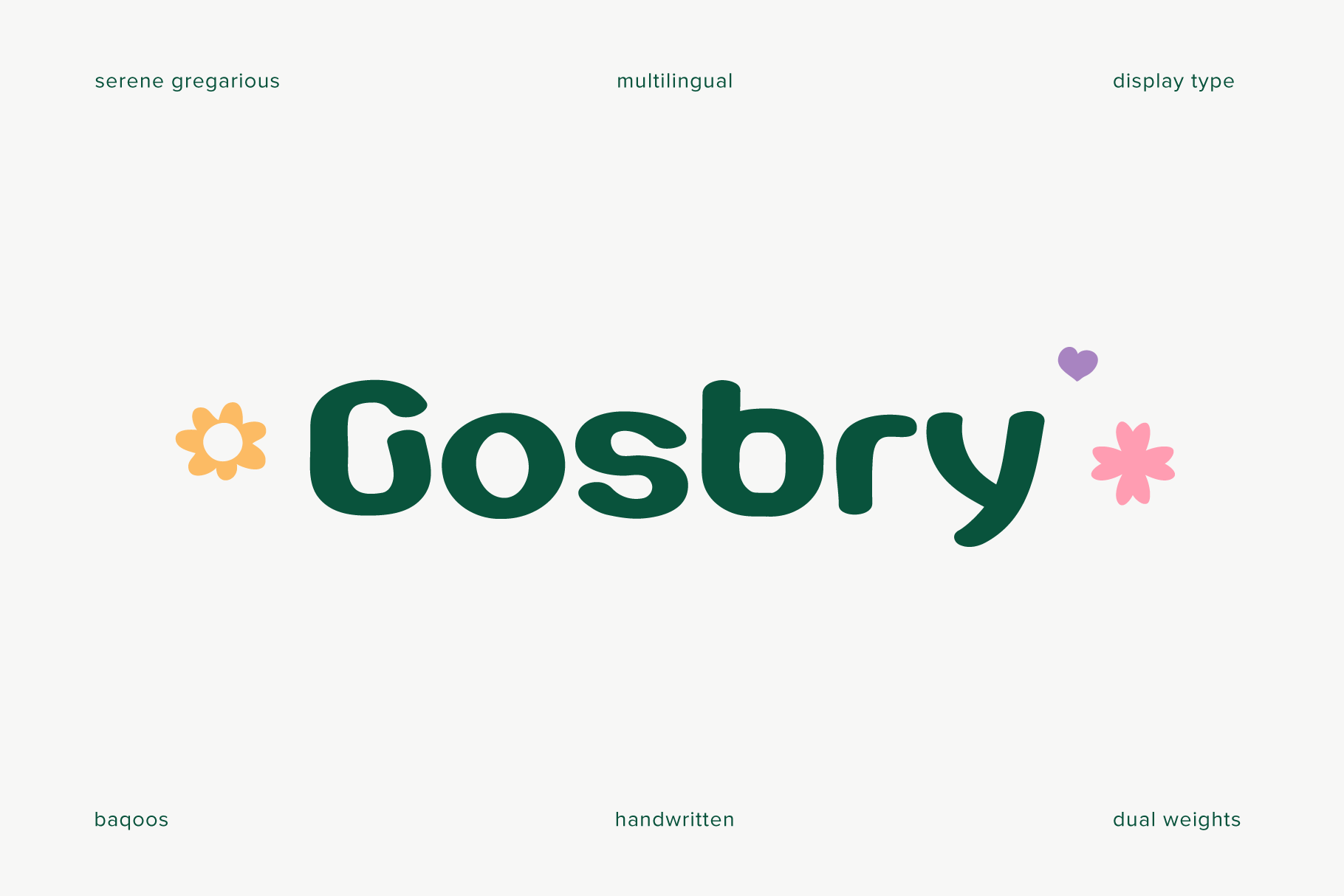
Gosbry Font
Gosbry is a serene gregarious handwritten typeface apt for headline, editorial, branding, packaging, printed materials and typographic applications. 220+ glyphs including punctuation and numerical.